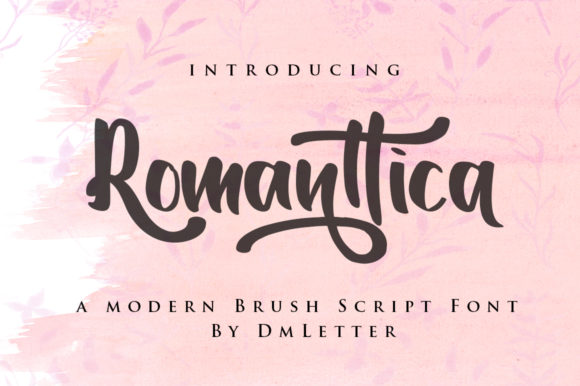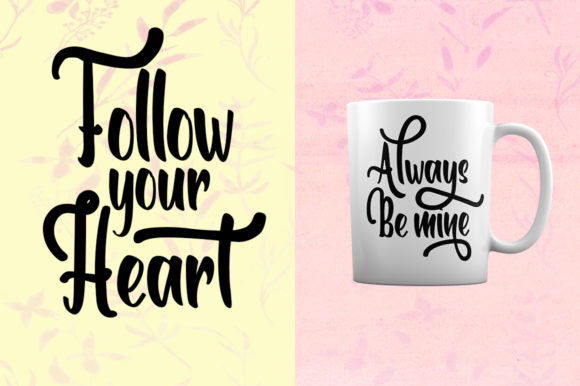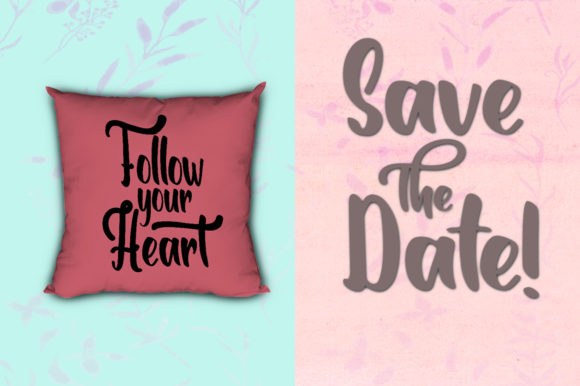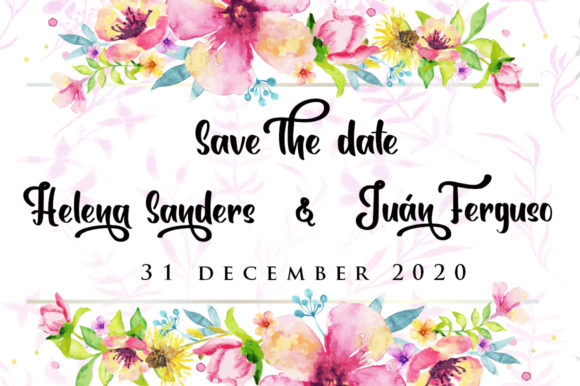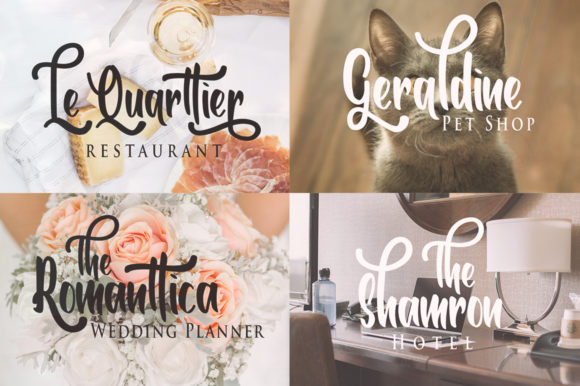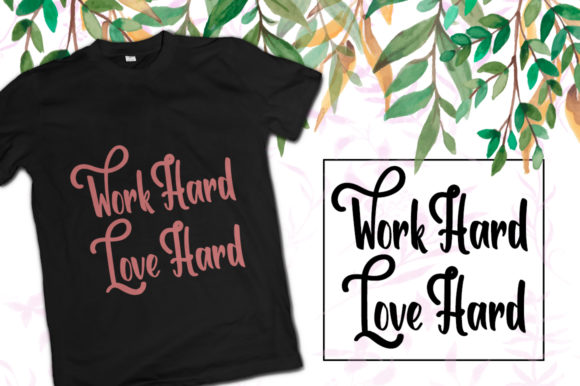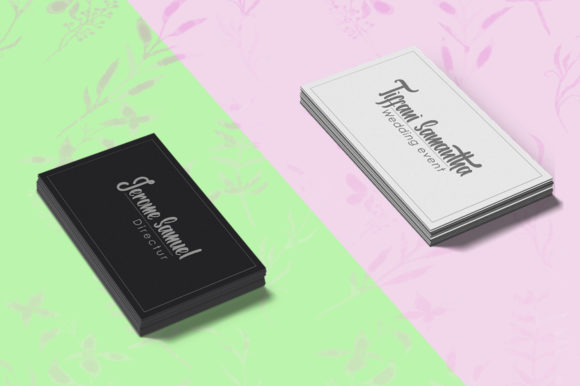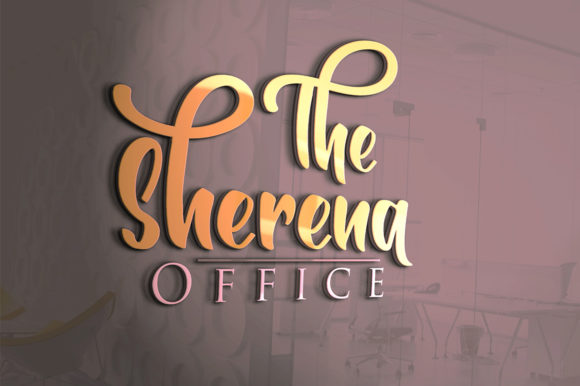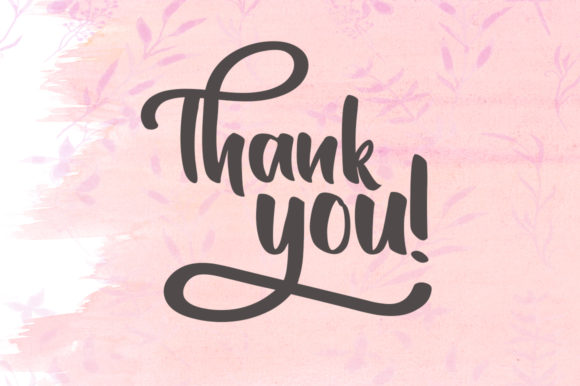
Romanttica Font
About Romanttica Font
The Romanttica is a modern handwritten brush font. The nodes are reduces gently so it’s clean and smooth in every character.
It can be used for various projects such as invitations, cards, gifts, branding, logos and every other design which needs an elegant touch.